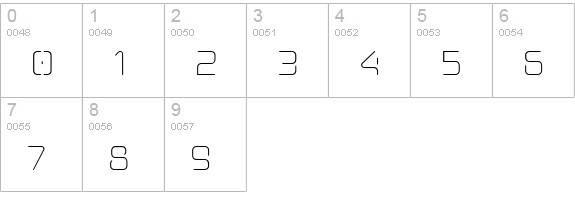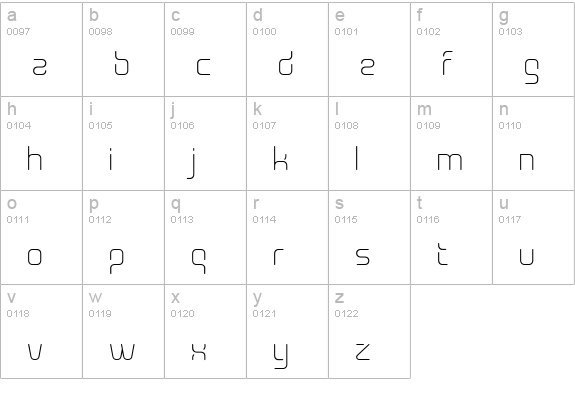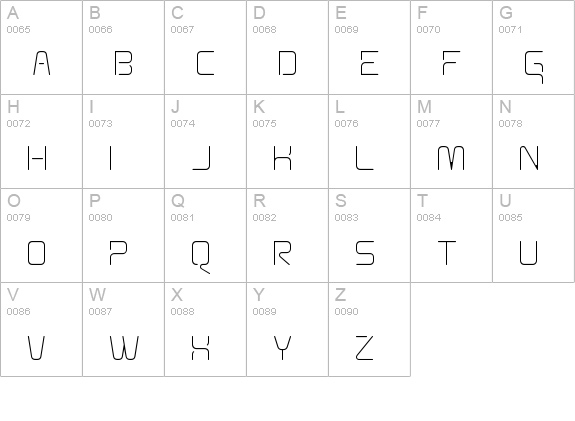
Aunchanted Xspace Thin is a delicate, low-contrast variant in the Aunchanted typeface family \xE2\x80\x94 well suited to fashion editorial, minimal branding, and high-contrast display.
Aunchanted Xspace Thin font is a modern and sleek typeface that exudes sophistication and elegance. With its thin and graceful letterforms, this font is perfect for creating a refined and stylish look in your designs. The unique combination of futuristic elements and enchanting charm sets Aunchanted Xspace Thin apart from other fonts, making it a versatile choice for a wide range of projects. Best of all, Aunchanted Xspace Thin font is available for free download at FontsMarket.com. Whether you're working on a branding project, a website design, or any other creative endeavor, this font is sure to add a touch of magic to your work. Don't miss out on the opportunity to enhance your designs with the captivating beauty of Aunchanted Xspace Thin font - download it today and let your creativity soar!